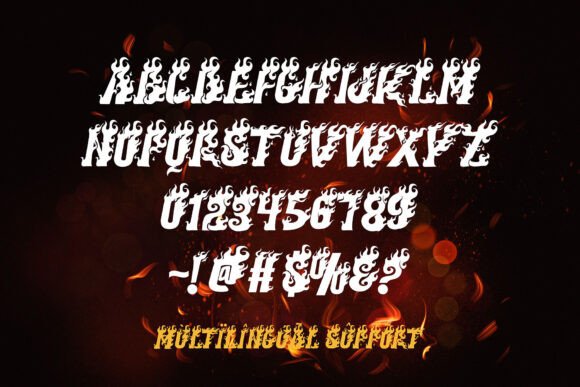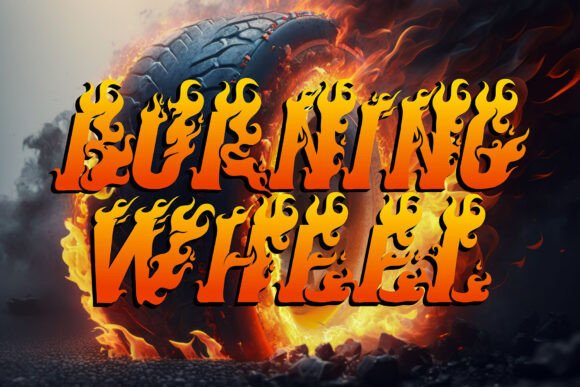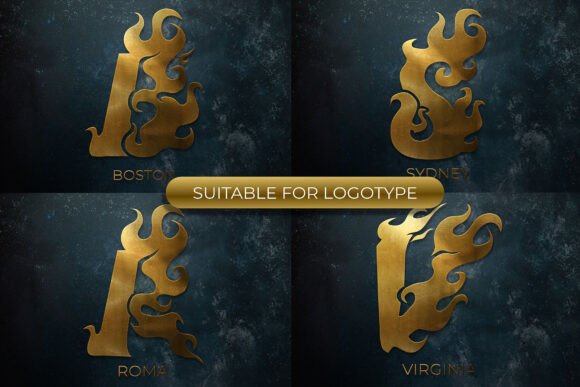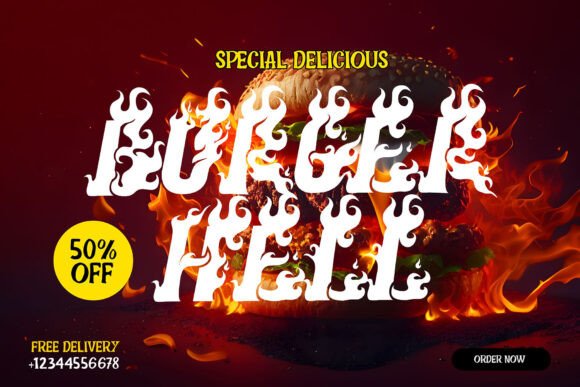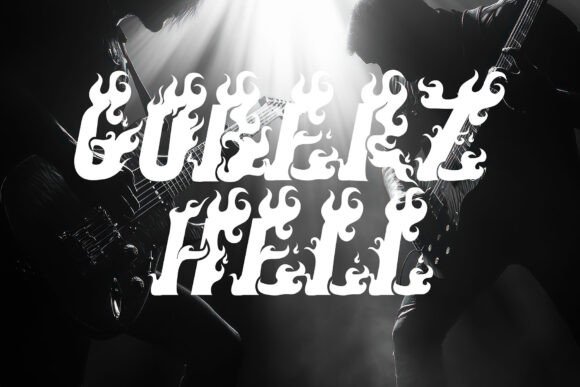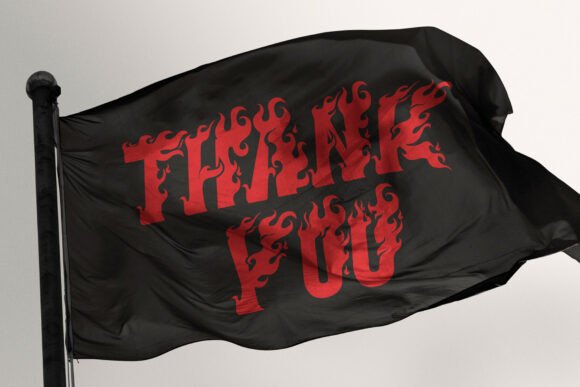
Introduction to Seven Flame Font
Have you ever stared at a blank canvas, waiting for that spark of inspiration to ignite your next creative project? For designers, this moment of blank-page anticipation can be both thrilling and daunting. But what if you had a tool that could fan the flames of your imagination, injecting high-octane energy into your designs? Enter the Seven Flame Font, a game-changing display font that’s set to revolutionize the way you approach your next creative project.
With its unique blend of kinetic energy and elemental intensity, the Seven Flame Font is the perfect design resource for anyone looking to add a touch of drama and sophistication to their work. Whether you’re working on a high-profile branding project or a free download for a design community, this font is sure to leave a lasting impression. And the best part? Its transparent background makes it easy to integrate into any design, giving you complete creative control.
Key Features of Seven Flame Font
- High-quality font design with intricate details and textures, perfect for creative projects.
- Includes multiple font styles, including bold and italic variations, to enhance design versatility.
- Designed at a high resolution (300 DPI) for optimal clarity and legibility.
- Perfect for use in various design projects, including graphic design, digital art, and print materials.
Honest Review: Seven Flame Font
I recently had the chance to use the Seven Flame Font for a creative project, and I must say, it was a pleasant experience. The font is a free download, which is always a bonus for designers on a budget. With its high quality design, it’s no wonder it’s become a popular design resource.
One of the standout features of this font is its transparent background, which makes it incredibly versatile for use on a variety of different backgrounds. I also appreciated the creative freedom that this font gave me, allowing me to experiment with different layouts and designs without worrying about the font overpowering the content.
- High quality design that’s perfect for creative projects
- Transparent background for easy use on any background
- Only available in a limited number of font weights and styles
- Not ideal for use in situations where a bold or dramatic font is needed
Overall, I’m impressed with the Seven Flame Font. It’s a solid choice for designers who need a reliable, high-quality font for their creative projects. Just be aware of its limitations, and you’ll be all set for a successful design experience.
The Seven Flame Font is a high-quality, free download design resource that can elevate your creative project. With a transparent background, this font is perfect for adding a touch of elegance to your designs.
Tips for Getting the Most Out of Seven Flame Font
Experiment with different font sizes, colors, and styles to create a unique look. Use the Seven Flame Font in combination with other design elements to add depth and interest to your design.
The Seven Flame Font is perfect for use in: branding, marketing materials, social media graphics, and website design. Its elegant and sophisticated design makes it an ideal choice for any creative project.